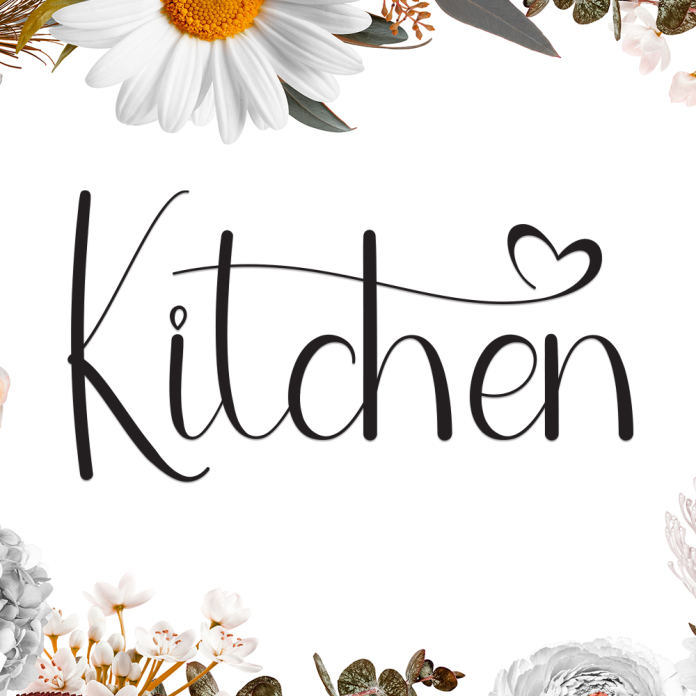
Kitchen is a warm and inviting handwriting font inspired by the heart of the home. With its casual strokes and friendly personality, this font brings a homemade charm that’s perfect for cozy, down-to-earth designs.
Ideal for recipe books, food packaging, café menus, social media, and DIY projects, Kitchen adds a touch of personal flavor to your creative work.
Handwritten style with a cozy, welcoming feel
Smooth and organic letterforms
Great for culinary projects, home decor, and lifestyle branding
Cook up something beautiful with Kitchen, the handwriting font full of warmth and flavor.